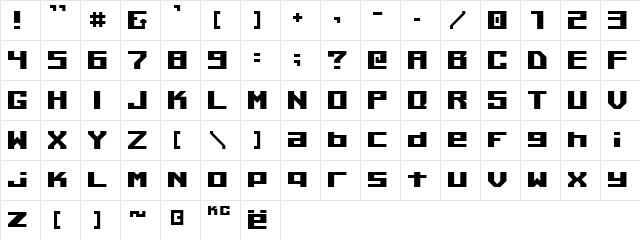
Kiloton v1.0 Free Font
Kiloton v1.0
Copyright: Kiloton by Kees Gajentaan. december 1996. Name taken from 'Marshal Law' comic book by Pat Mills & Kevin O'Neill.
Design Context for Kiloton
Kiloton is a composed and adaptable typeface that performs quietly and consistently across a wide range of design contexts.